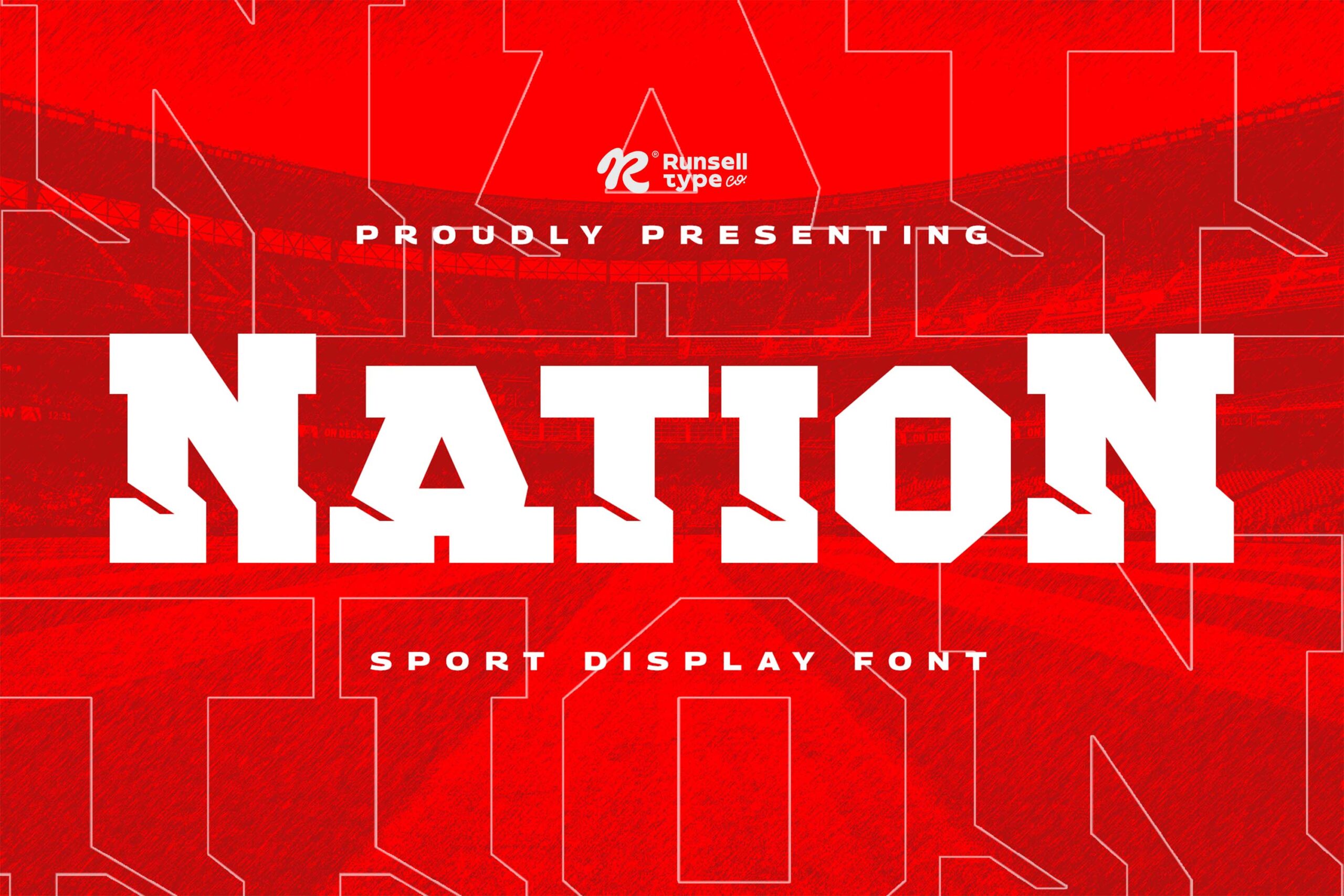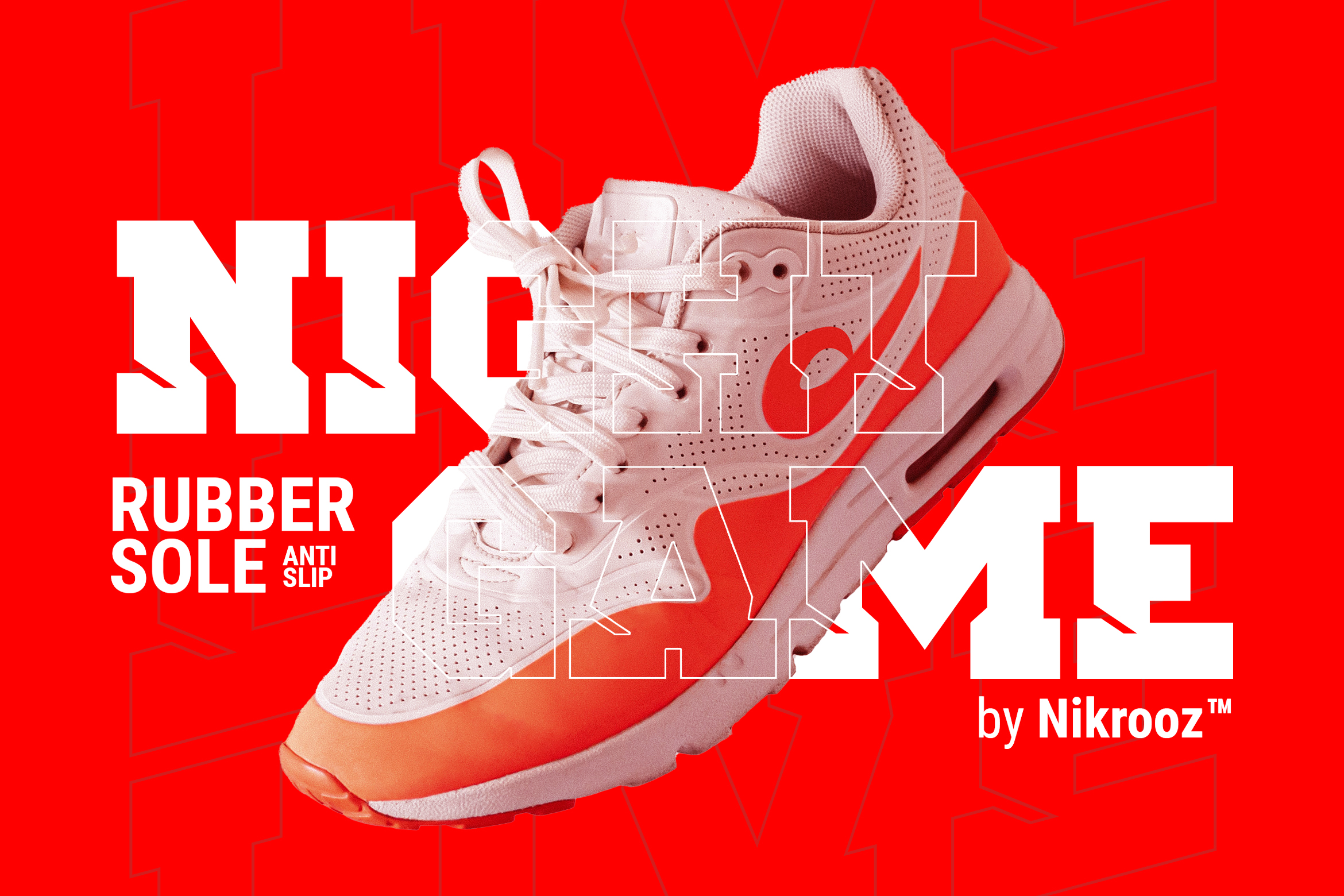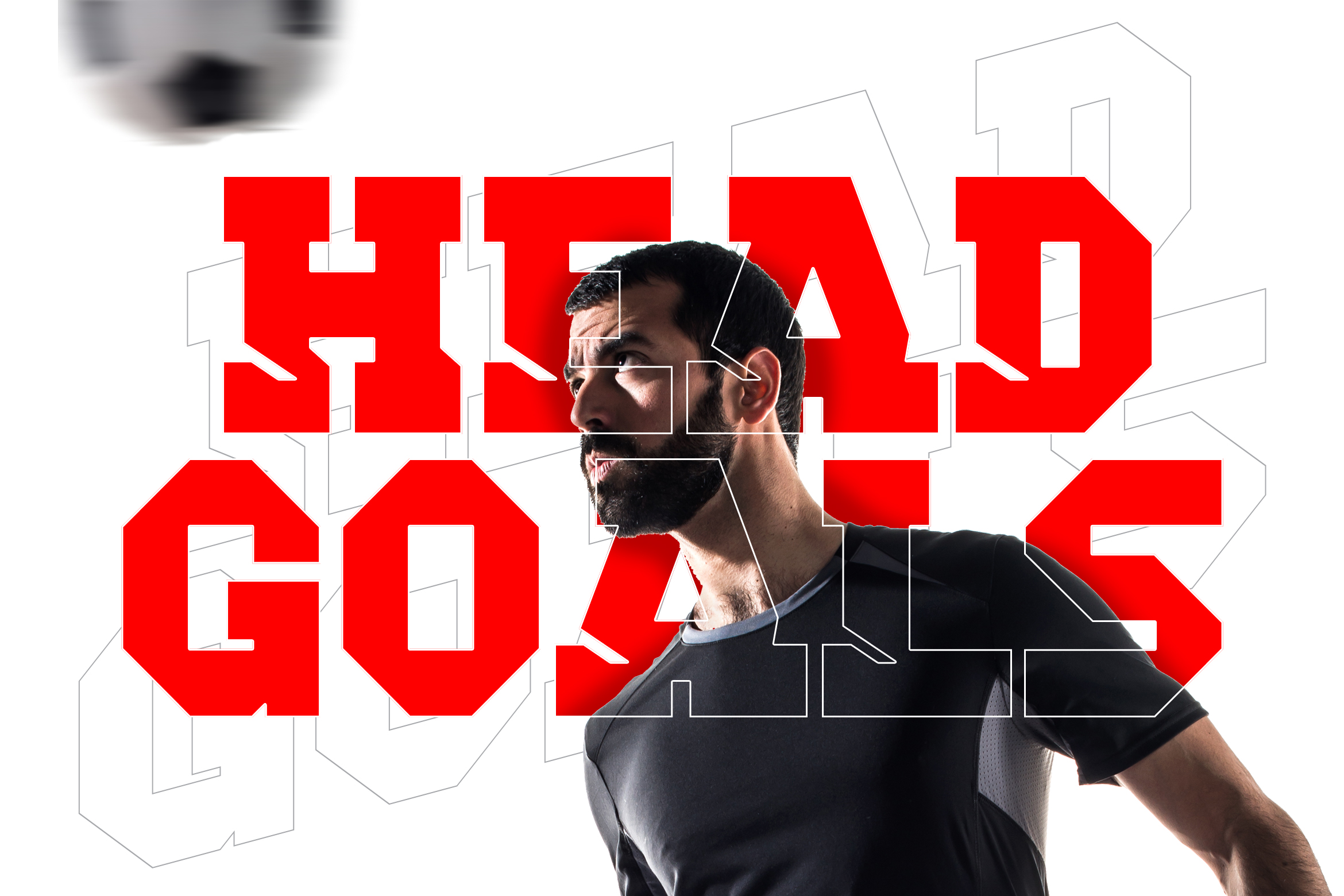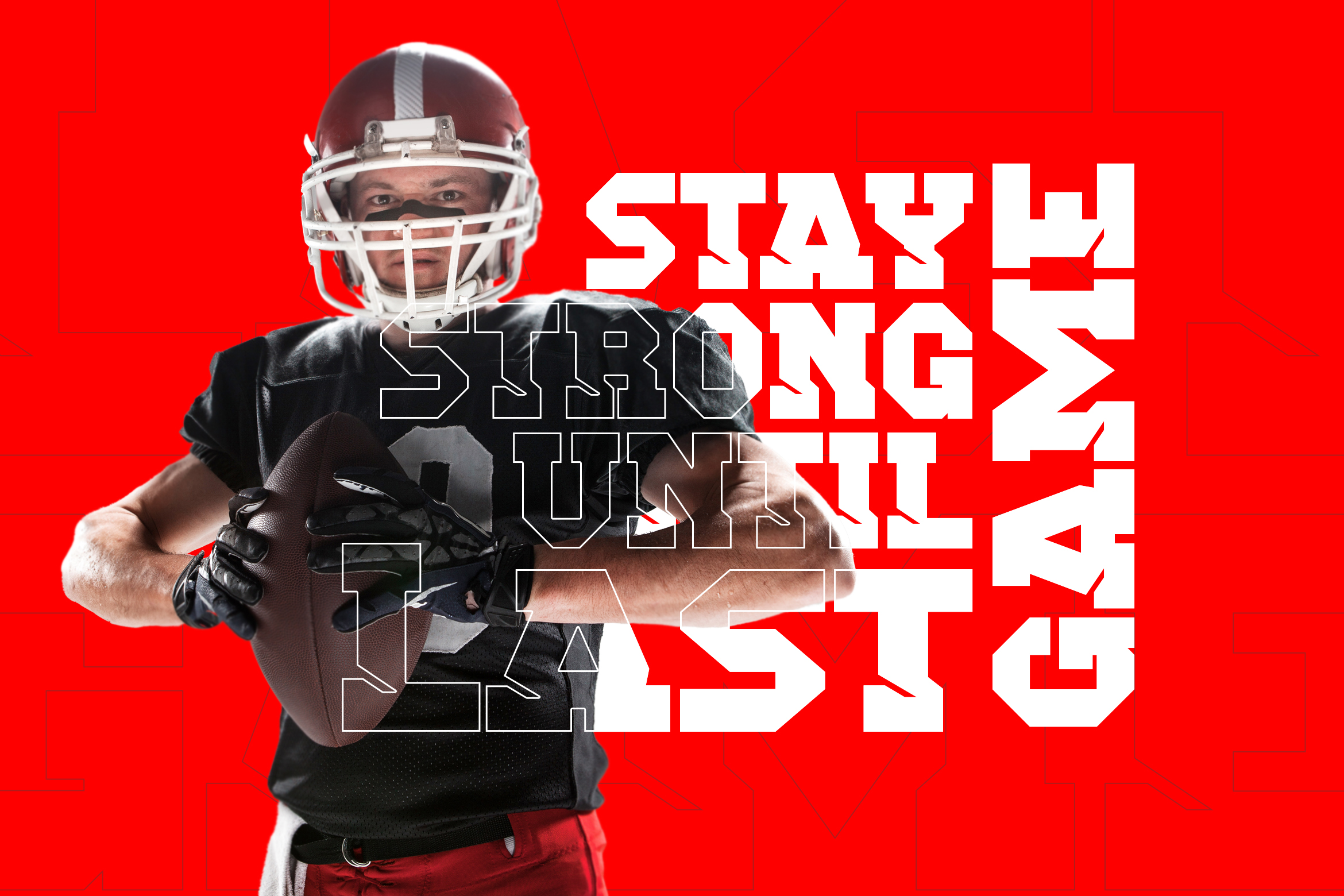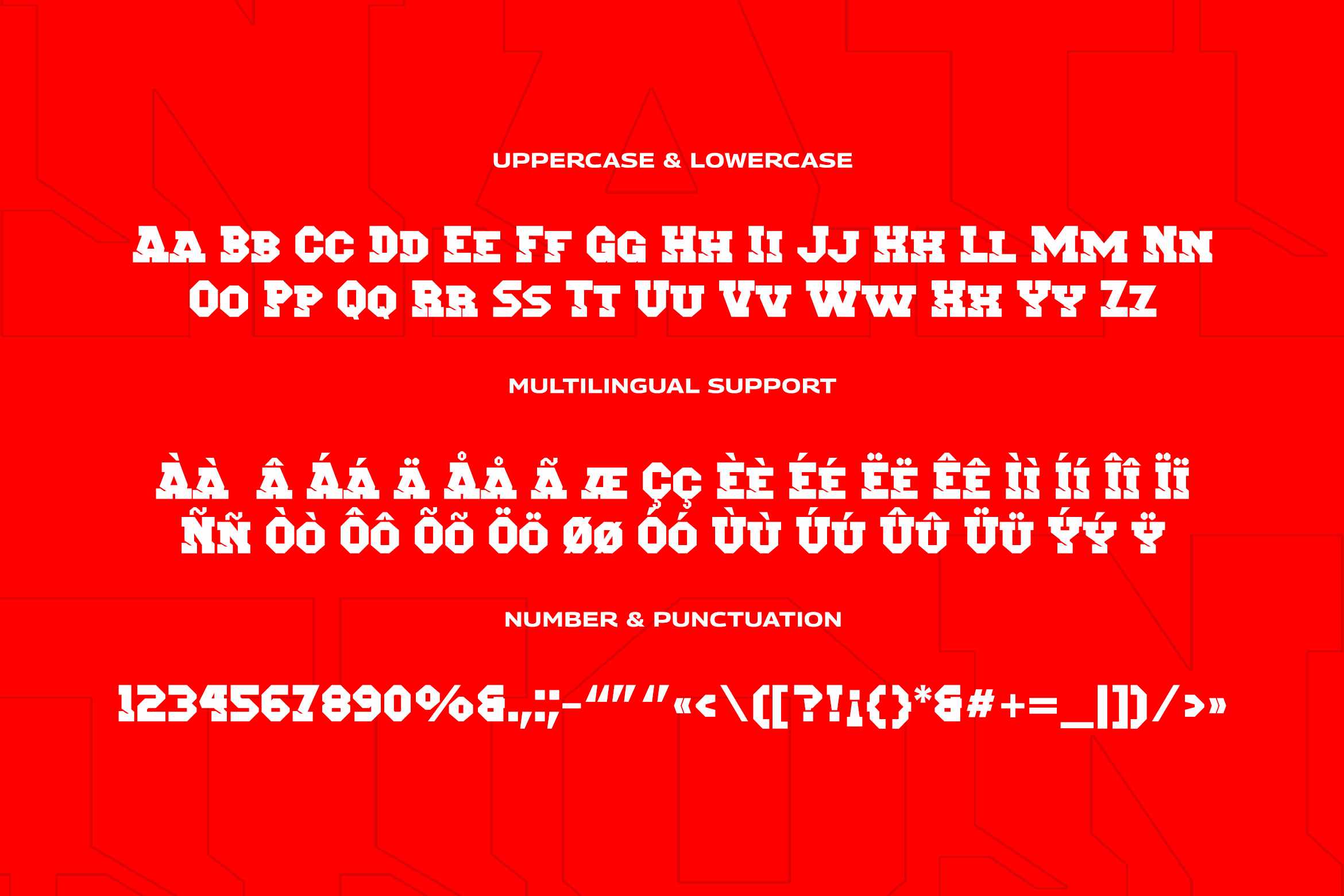
Nation is a bold and energetic sport display font designed to bring power and authority to your typography. With strong angles, sharp terminals, and a dynamic block structure, Nation exudes the spirit of athleticism and competition. It’s perfect for headlines, jersey numbers, sports branding, and event posters that demand attention and deliver impact.
Packed with uppercase and lowercase characters, multilingual support, and a complete set of numbers and punctuation, Nation is crafted for versatility across all media types. Whether you’re designing for football, basketball, or extreme sports, this font ensures your message hits hard and stands tall on every field.
Nation